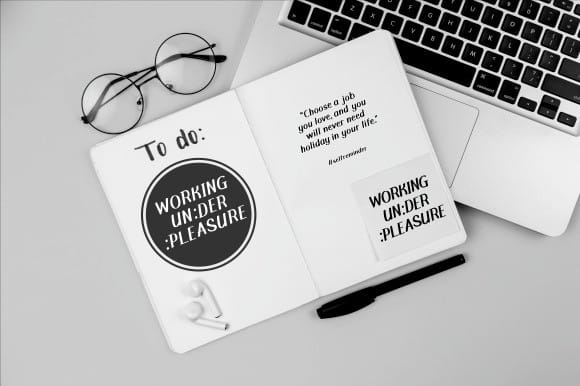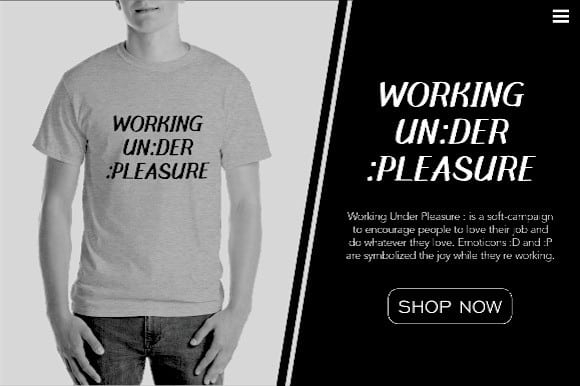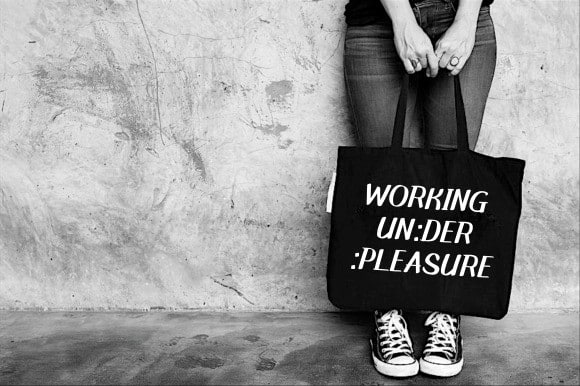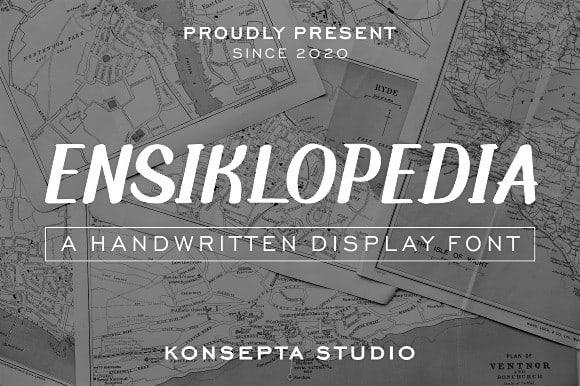
Ensiklopedia Display Font
Hello ! This is newest product called Ensiklopedia Display Font. This is available now, with a geometric touch. Perfectly suited for graphic design and any display use. It could easily work for web, signage, corporate as well as for editorial design. It’s designed and shared by Konsepta Studio. Ensiklopedia Display Font is a friendly display font. Its casual charm makes it appear wonderfully down-to-earth, readable and, ultimately, incredibly versatile. Ensiklopedia will look outstanding in any context, whether it’s being used on busy backgrounds or as a standalone headline!